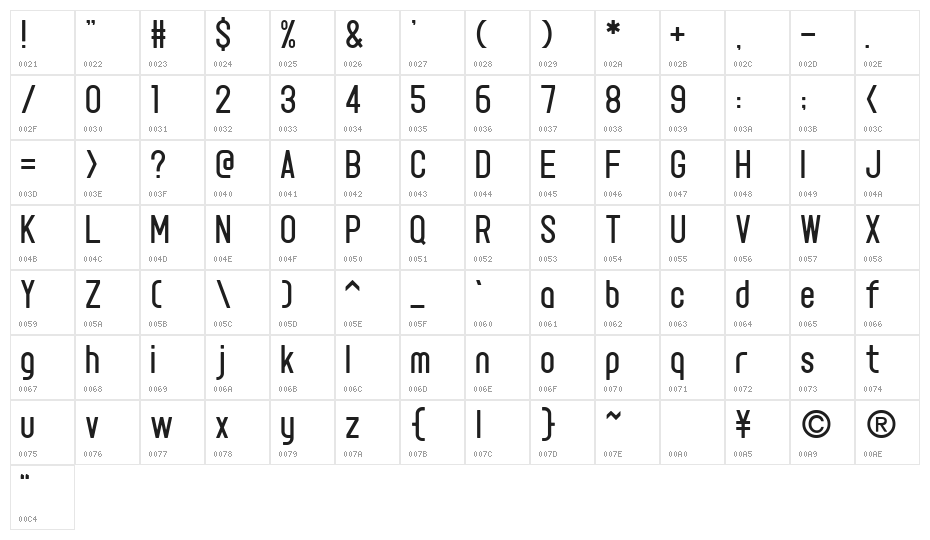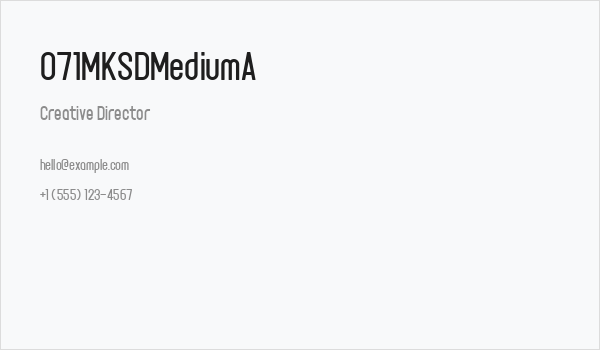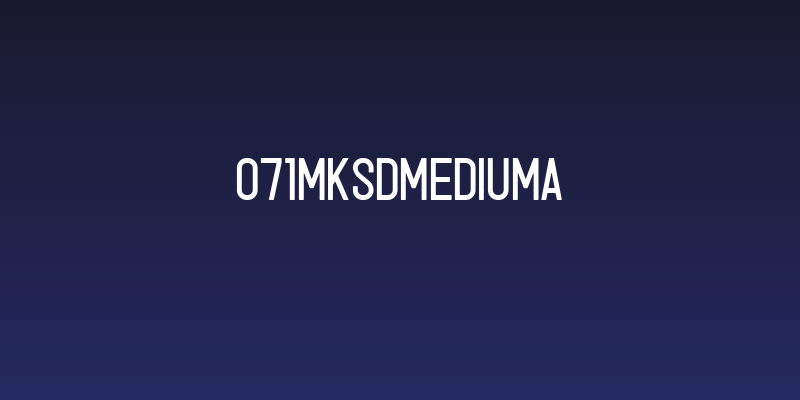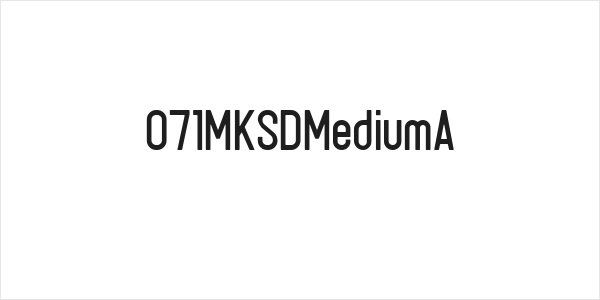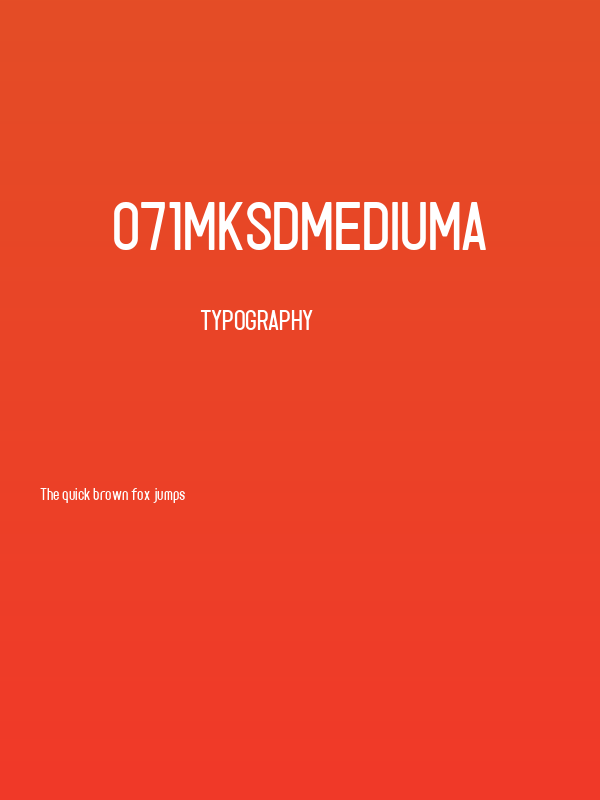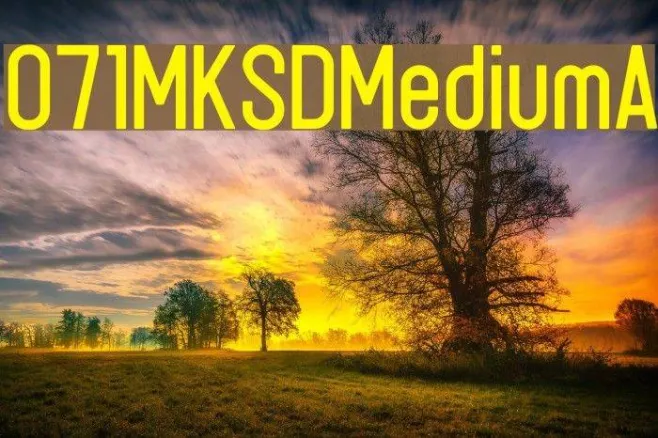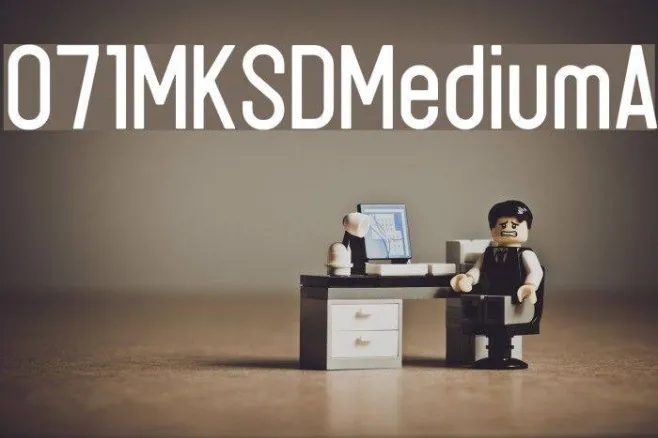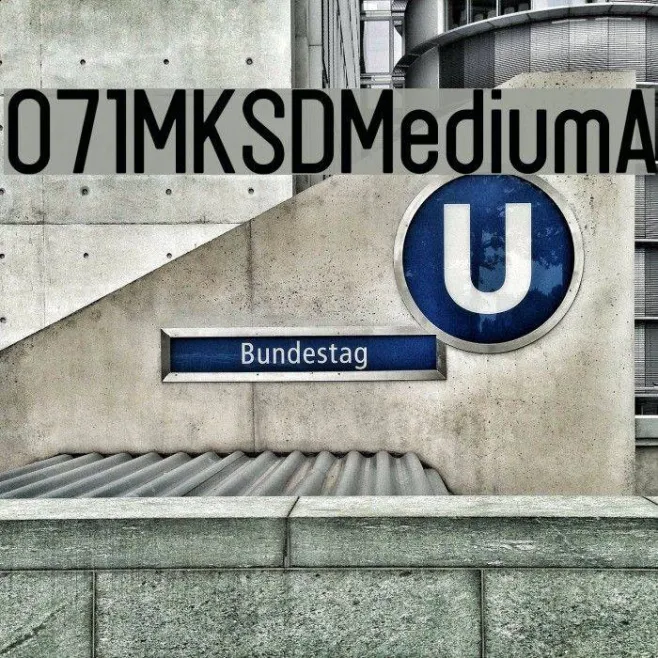
071MKSDMediumA Font
071MKSDMediumA Description
This font features a clean and modern sans-serif design with uniform stroke widths, providing a sleek and contemporary appearance. The characters are well-proportioned, with a slightly condensed form that enhances readability while maintaining a stylish aesthetic. The uppercase letters are bold and assertive, while the lowercase letters offer a softer, more approachable feel. The numerals are clear and distinct, making them suitable for a variety of applications. Special characters are included, ensuring versatility in usage. Overall, this font balances functionality with a modern design, making it ideal for both digital and print media.
| Proposed Projects | Ideal for branding, web design, advertising, and editorial layouts. |